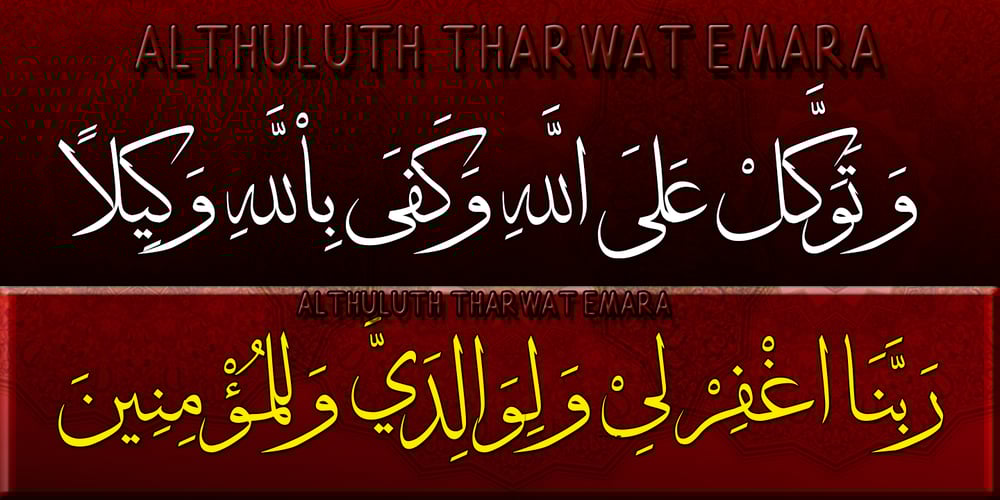
TE Al Thuluth
TE Al Thuluth font
TE Al Thuluth Font Family was designed by Tharwat Mohamed Emara and published by Tharwat Emara. TE Al Thuluth contains 1 styles and family package options. This Font is similar to the calligraphic style AL THULUTH. I added many glyphs to each other to get this feature and it become easier to graphic designer to write with Arabic AL THULUTH font without being a real calligrapher. It works beautiful in Headlines of Arabic books and photos and it is Fine Art . It also used in writing on T-shirts and clothes . This Font contains many Glyphs in Latin, Farsi, Urdu, Arabic ).